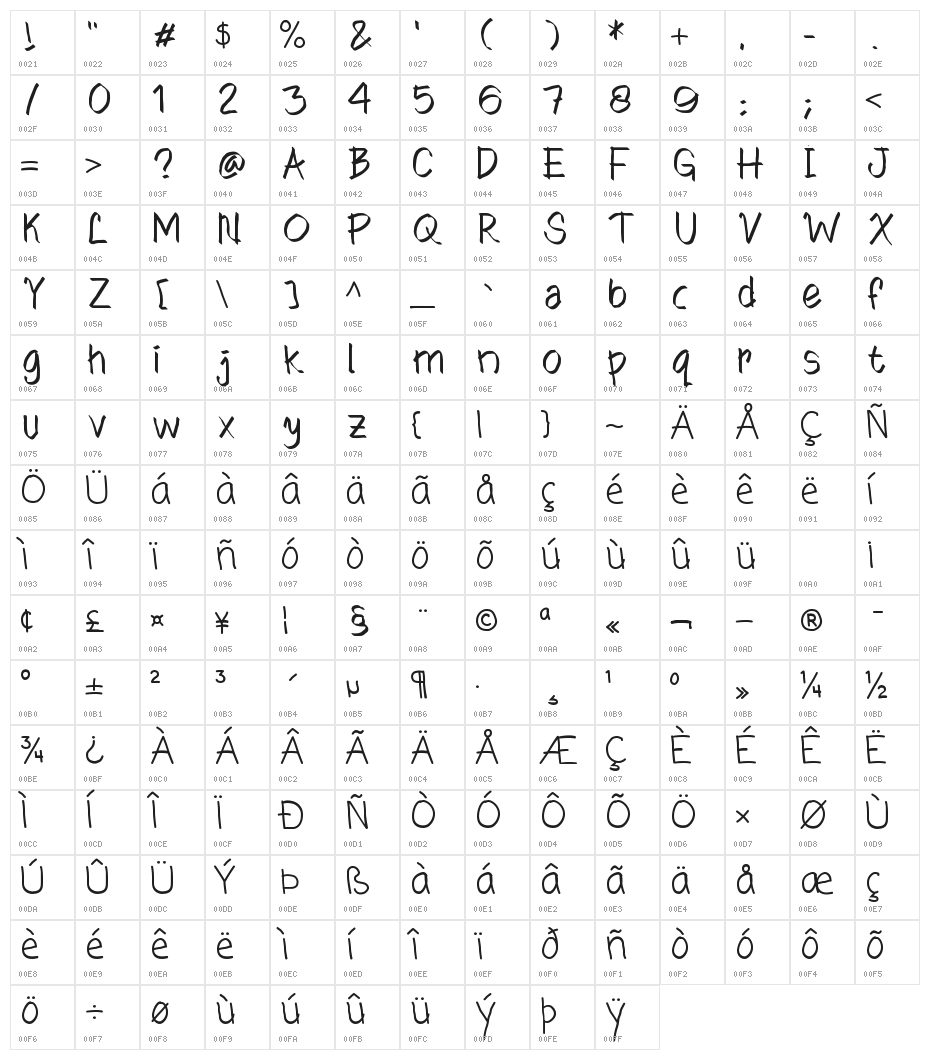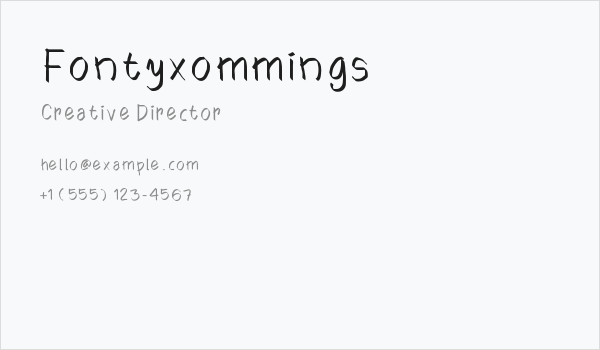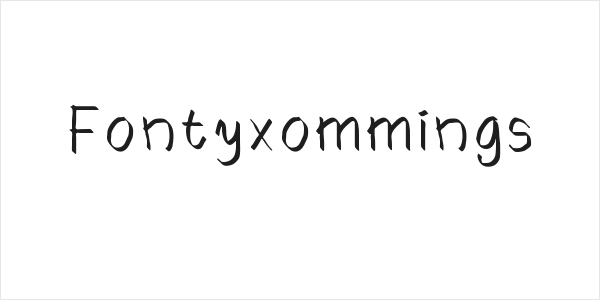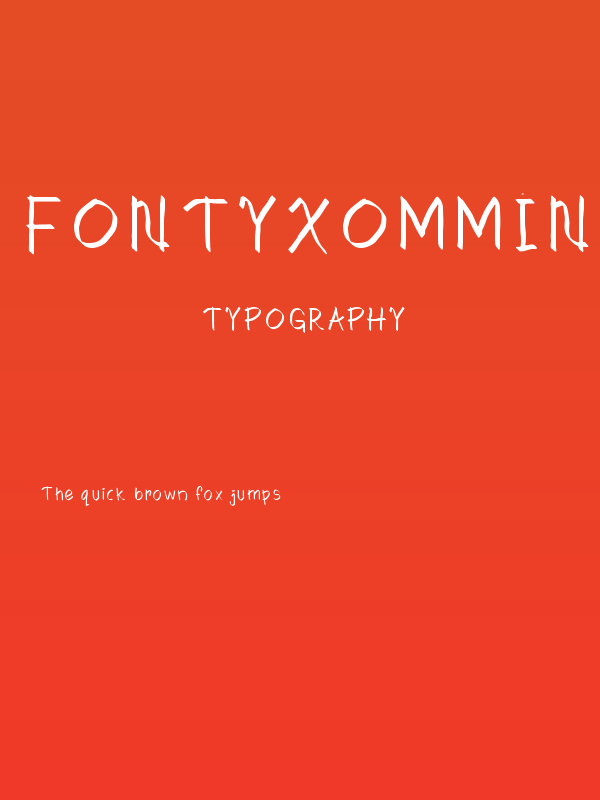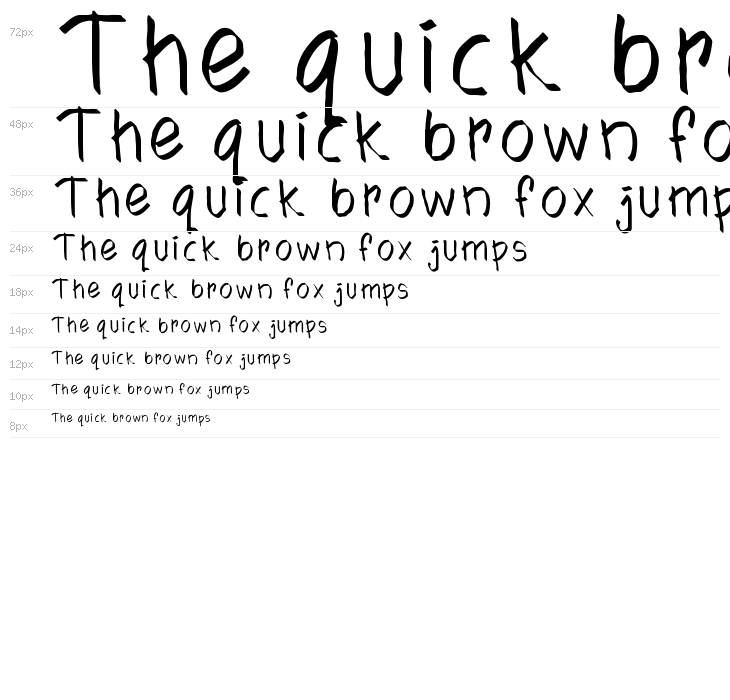
Fontyxommings Font
Fontyxommings Description
This font features a playful and handwritten style, characterized by its irregular strokes and casual appearance. The letters have a slightly uneven baseline, giving them a dynamic and lively feel. The uppercase and lowercase letters maintain a consistent style, with rounded edges and a slight tilt that adds to the informal aesthetic. The numerals and special characters follow the same design principles, ensuring a cohesive look across all glyphs. This font's unique charm makes it suitable for projects that aim to convey a sense of creativity and approachability.
| Use Case | Logos, Invitations, Posters |
| Proposed Projects | Ideal for greeting cards, children's books, creative posters, and informal branding. |